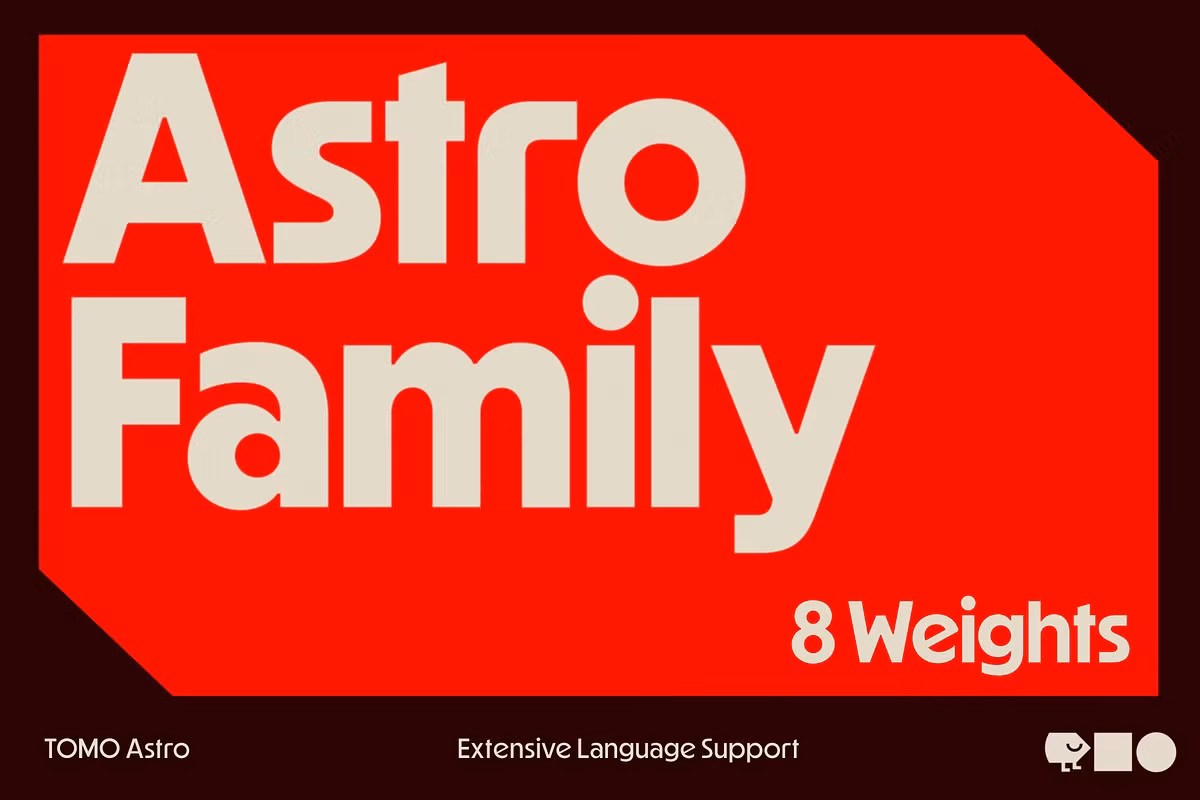
Astro Font Free Download is a sleek, modern typeface with a futuristic edge, perfect for space, technology, and science fiction-inspired designs. Featuring clean lines, geometric shapes, and a minimalist design, Astro works beautifully for branding, logo design, posters, tech interfaces, and sci-fi movie titles.
Its sharp, modern feel makes it ideal for high-tech projects or anything that needs a clean and cutting-edge look. Whether you're creating digital content, designing for a tech brand, or working on a space-themed project, Astro brings style and sophistication to your typography.